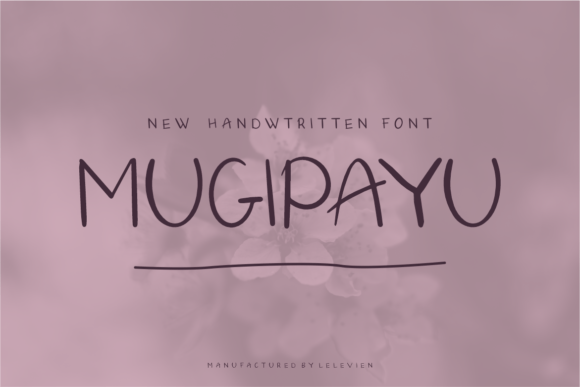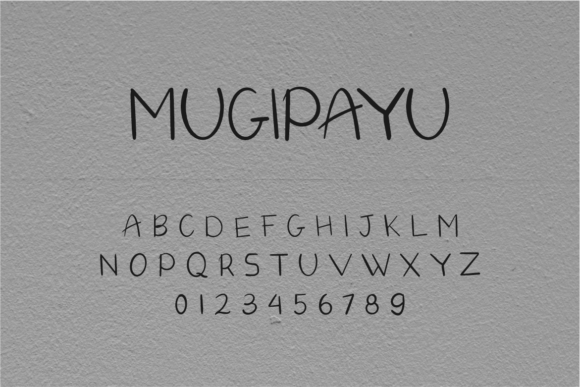
Mugipayu Font
About Mugipayu Font
The Mugipayu Font Download is a cool and unique handwritten typeface that brings creativity, style, and charm to any project. Neatly crafted with high attention to detail, this font balances modern elegance with a playful handwritten vibe. As a result, it is an excellent choice for designers who want a font that feels fresh and versatile.
Moreover, Mugipayu is highly adaptable. It works just as well in branding projects as it does in personal crafts. Whether you’re designing wedding invitations, social media graphics, or posters, this font maintains readability and elegance across all mediums. In addition, its quirky yet polished strokes make it stand out among other handwritten fonts.
Features of Mugipayu Font
When you download the Mugipayu Font, you’ll enjoy several features:
• A unique handwritten style with detailed strokes
• Neatly crafted letterforms for professional results
• High readability across digital and print designs
• A versatile look that adapts to casual and formal projects
• A stylish typeface that adds originality to every design
Best Uses for Mugipayu Font
The Mugipayu Font Download is perfect for a wide range of creative applications. For example, it works beautifully for:
• Branding and logos – Add character and uniqueness to boutique or lifestyle brands
• Wedding invitations and stationery – Romantic handwritten strokes for elegant events
• Greeting cards – Personal messages with a creative handwritten style
• Social media posts – Standout graphics for Instagram, Pinterest, and blogs
• DIY crafts and handmade products – Add a personal and warm touch to designs
• Event posters and flyers – Bold, quirky letters that capture attention instantly
Because of its versatility, Mugipayu is a valuable addition to any font library.
Why Choose Mugipayu Font
The Mugipayu Font Download stands out from ordinary handwritten fonts due to its detailed and neatly designed structure. Its uniqueness lies in its ability to combine playful creativity with polished professionalism. In addition, its natural handwritten strokes make it perfect for projects that need authenticity and warmth.
Furthermore, it is beginner-friendly while still being detailed enough to meet professional standards. As a result, Mugipayu offers both ease of use and professional quality, making it a favorite among designers.
In conclusion, the Mugipayu Font Download is a cool and unique handwritten typeface that brings style, detail, and creativity to any design. From branding and wedding invitations to social media and crafts, this font enhances every project with its distinctive handwritten charm.